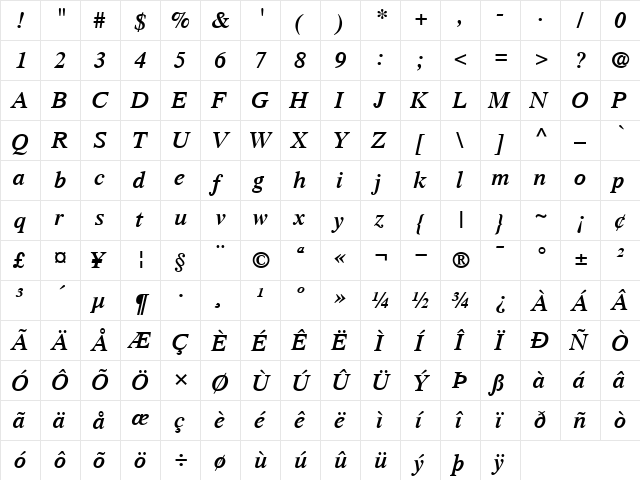
Times-SemiBold Semi BoldItalic
Design Context for Times-SemiBold Typeface
Times-SemiBold offers clean, dependable letterforms without strong stylistic allegiance, making it a practical choice for designers who need flexibility. Its italic angle brings a sense of urgency and motion to the letterforms. The heavy weight commands attention and anchors typographic hierarchies.
Pro Tip: Use Times-SemiBold for emphasis, pull quotes, and subheadings where its slanted energy can add rhythm to the layout.